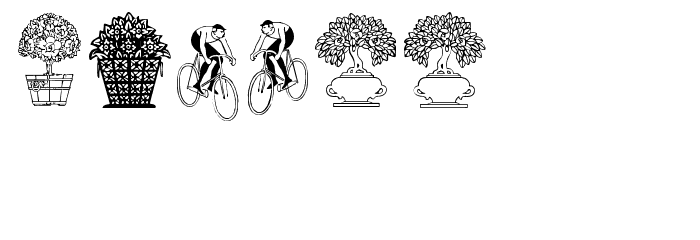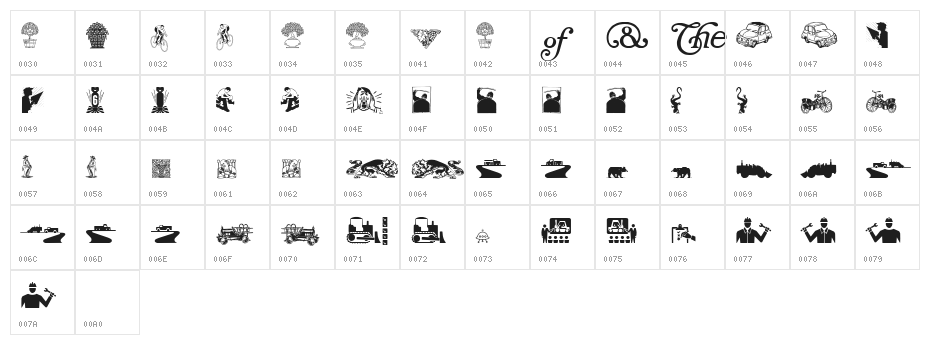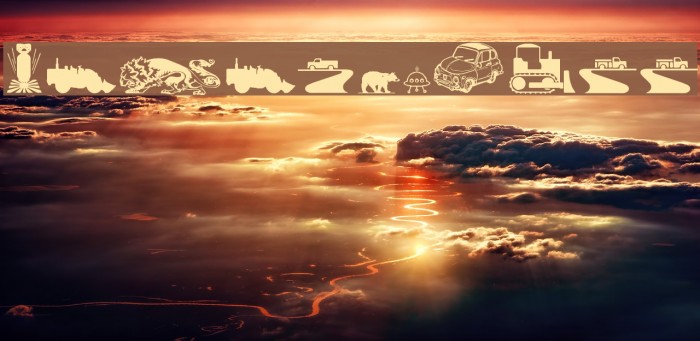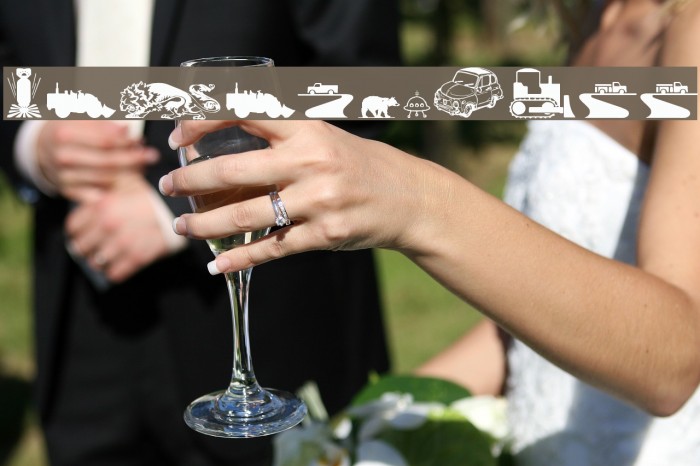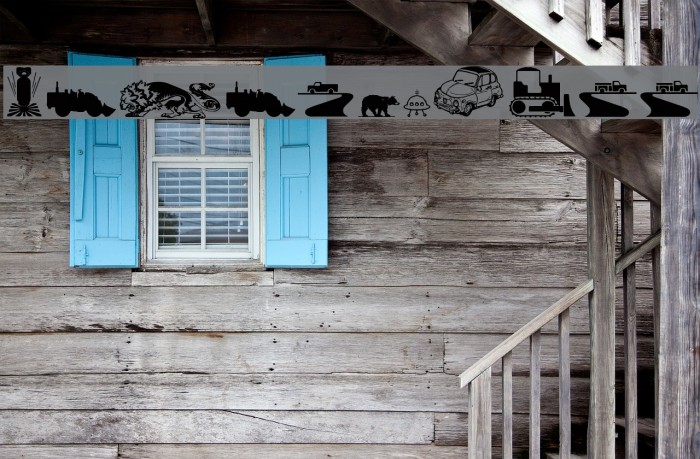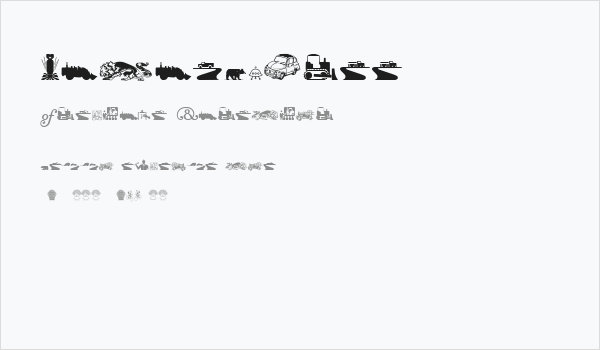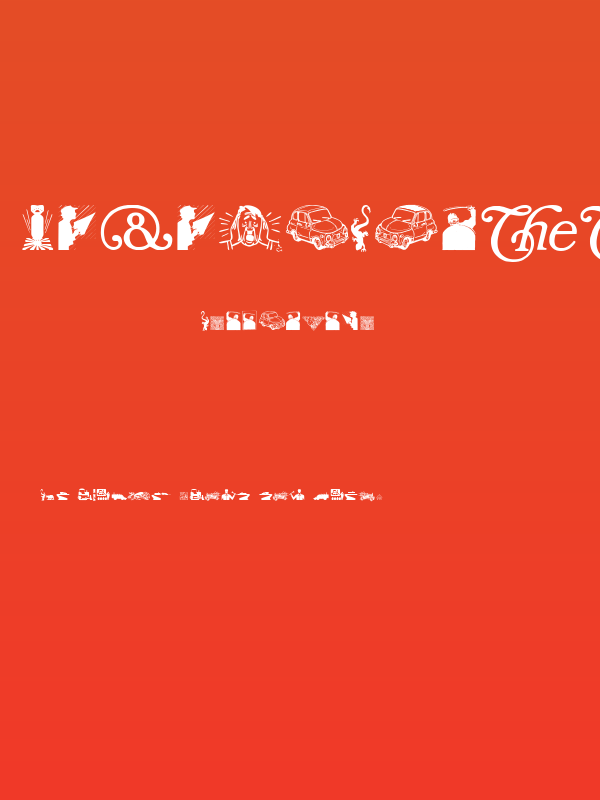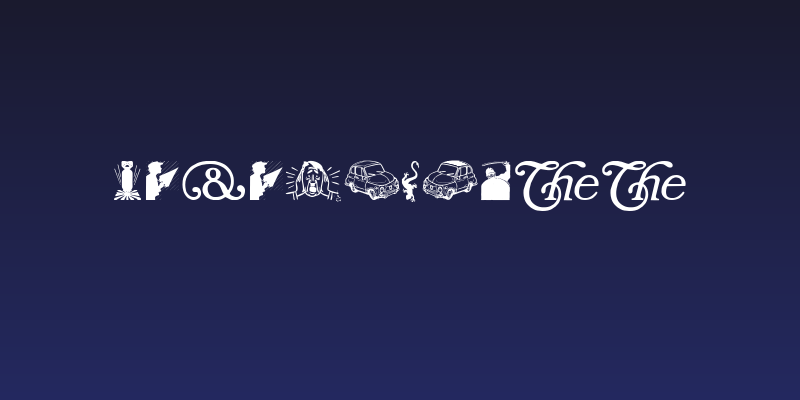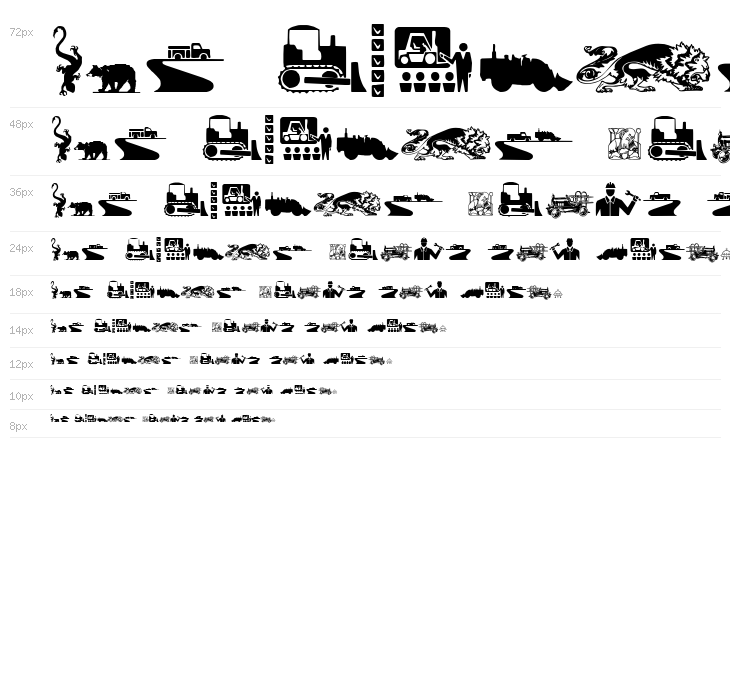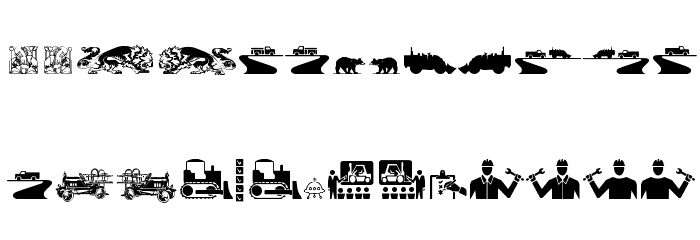
KidingsFree Font
KidingsFree Description
A decorative dingbat font featuring a mix of whimsical illustrations, including people, vehicles, animals, plants, and ornate script characters. The glyphs are highly detailed and vary in complexity, with some traditional letterforms and many pictorial symbols.
| Overall Style | Decorative, Whimsical, Playful |
| Use Case | Illustrative accents, themed headings, creative design elements |
| Proposed Projects | ChildrenΓ’β¬β’s books, educational materials, playful invitations, creative posters, scrapbooking, themed event graphics. |